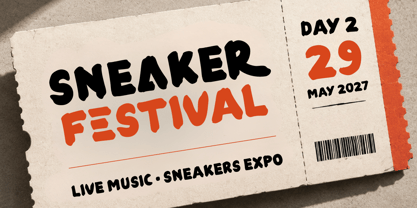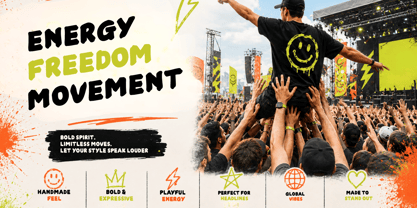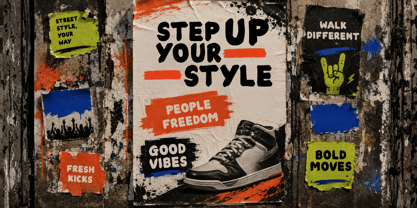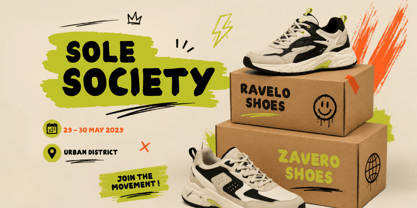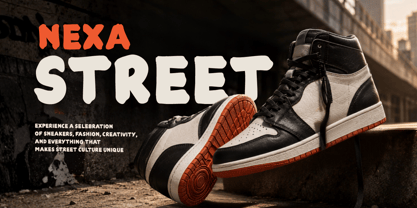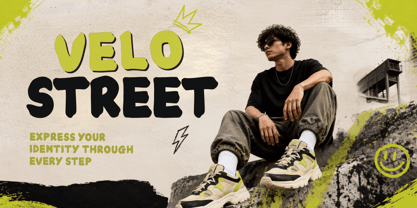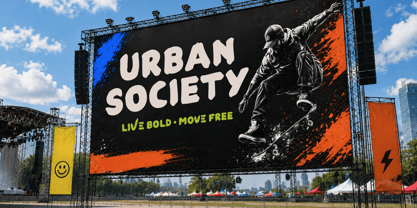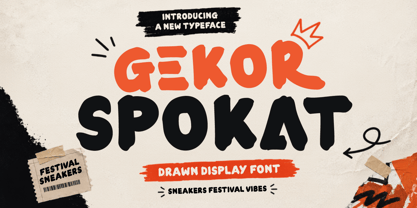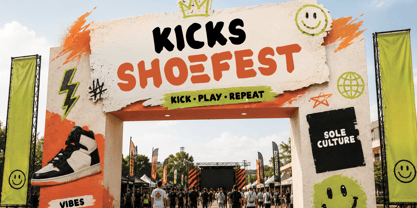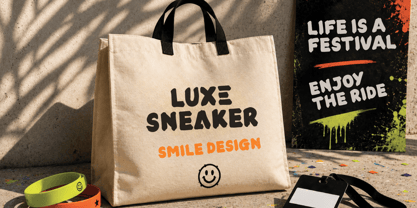
Gekor Spokat
by Trabas Kriya
The Gekor Spokat Font Family was designed by Murozakul Akhsan and published by Trabas Kriya. Gekor Spokat contains 1 styles. More about this family
Gekor Spokat is a bold and energetic brush typeface inspired by sneaker culture, streetwear, and the vibrant atmosphere of modern festivals. Its chunky letterforms and expressive brush strokes create a handcrafted, playful, and urban personality that instantly gives headlines a strong visual impact.
Designed for attention-grabbing visuals, Gekor Spokat is perfect for sneaker branding, fashion campaigns, festival posters, event promotions, product advertising, shopping campaigns, and streetwear projects. Its expressive character works especially well for youthful, energetic, rebellious, and contemporary design concepts.
Use Gekor Spokat for posters, merchandise, packaging, logos, apparel, social media graphics, advertising, headlines, signage, and promotional materials. The combination of bold lettering and raw brush aesthetics makes it a versatile choice for creative projects inspired by street culture and modern lifestyle trends.